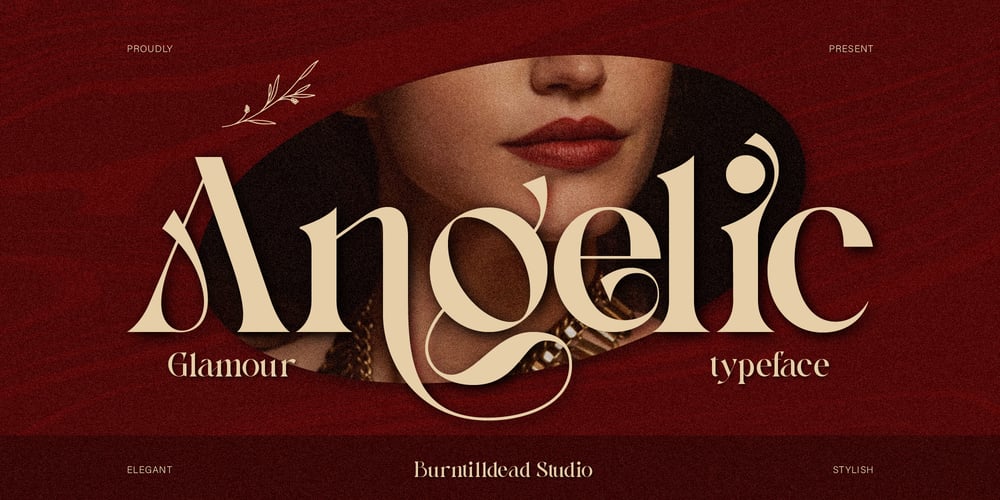
Angelic Font Family was designed by Eric Kurniawan and published by Burntilldead. Angelic contains 1 styles and family package options. Introducing Angelic, our serif typeface exudes luxury, elegant and modernity. With clean lines and elegant curves, it brings unique and classy look to any design project. Perfect for luxury themes projects, fashion magazines, high end branding, editorial design and luxurious invitations. Features: A – Z set Number Punctuation Alternate Ligature Multilingual